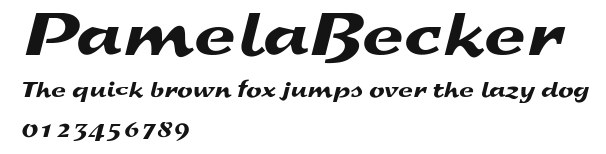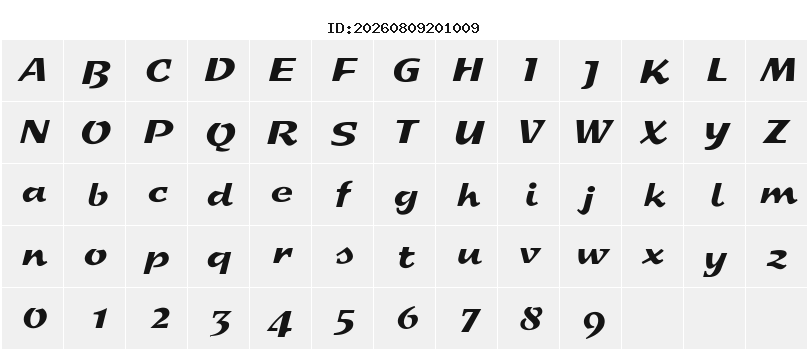
About PamelaBecker.ttf
PamelaBecker.ttf is a modern, elegant sans-serif font designed for ultimate readability and visual harmony. Perfect for branding, headlines, web design, and print materials.